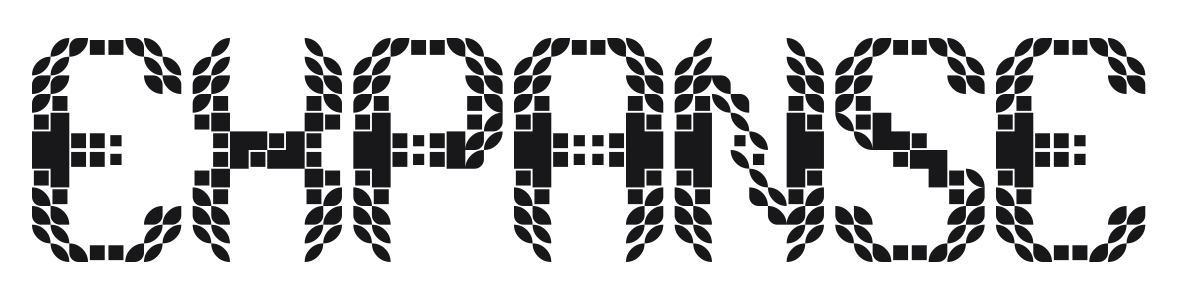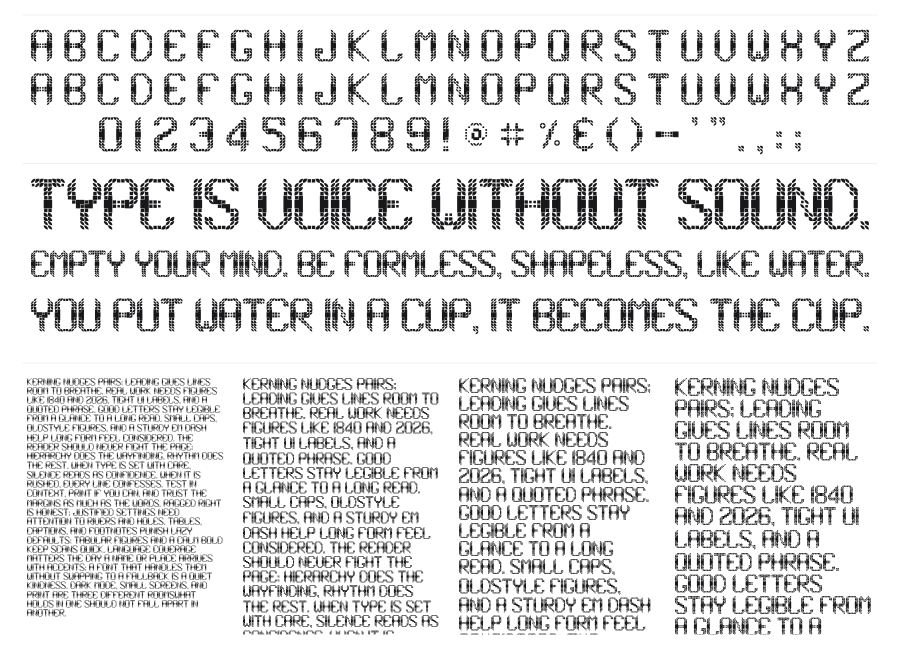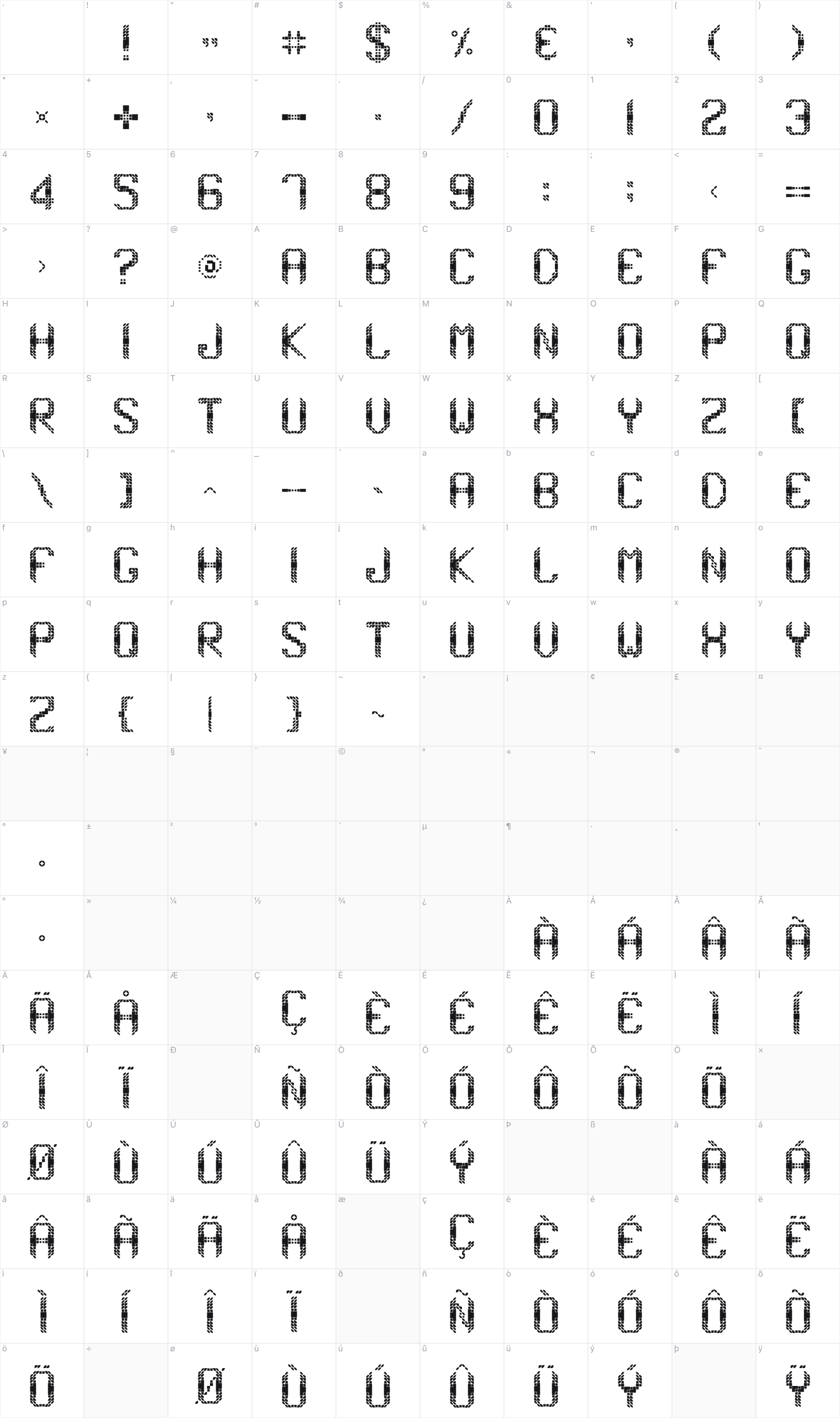
Expanse
Expanse is a modular display font where every stroke is assembled from repeating square segments, like a grid of perforated tiles. The effect sits somewhere between an LED scoreboard and a retro space-age aesthetic. Heavy and all-caps, it commands attention at large sizes.